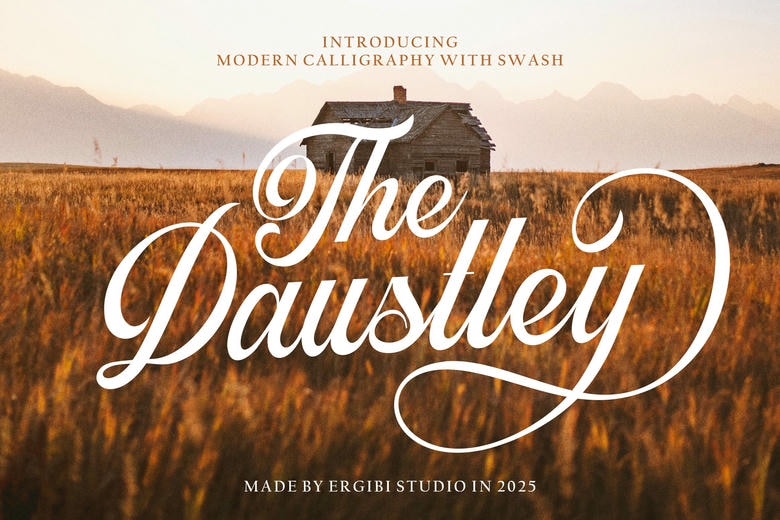
Daustley Font
Daustley is an advanced calligraphy typeface that makes your design graceful and beautiful. Daustley with its sleek lines and elegant types would be ideal in work where a bit of class and innovation are needed. Alternate characters are also provided with the font, and you are free to make a unique and personal choice of the typing mixes.
Perfect where you need to invite people to a wedding or any other form of branding, logos, social media posts or any other design requiring the class and elegance of a handwritten design.
Daustley Calligraphy Script Font